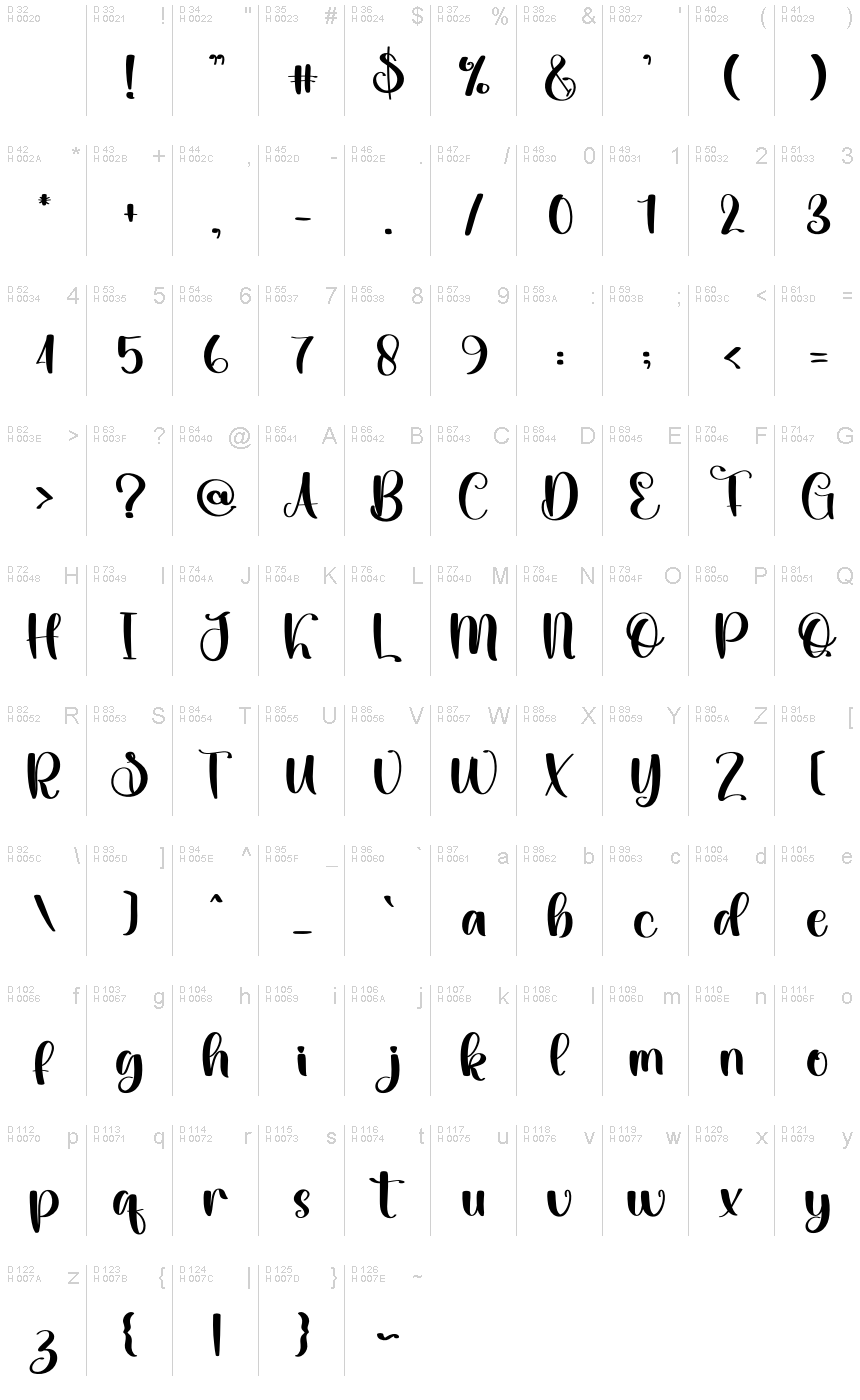
Hounted Christmas
Hounted Christmas by FreshtypeINK exudes a whimsical yet bold charm that captures the spirit of a festive holiday with an unexpected twist. The brush style strokes are artfully crafted to convey movement and character, giving each letter the appearance of having been painted with care and vigor. Its robust form allows for impactful visual statements, making it an excellent choice for designs that aim to stand out.
Perfect for seasonal greetings, event posters, or any project seeking to blend the traditional cheer of Christmas with a hint of playful spookiness, Hounted Christmas is versatile in its appeal. It invites designers to create work that tells a story, one where the joyous meets the mystical in a dance as captivating as winter's first snowfall.